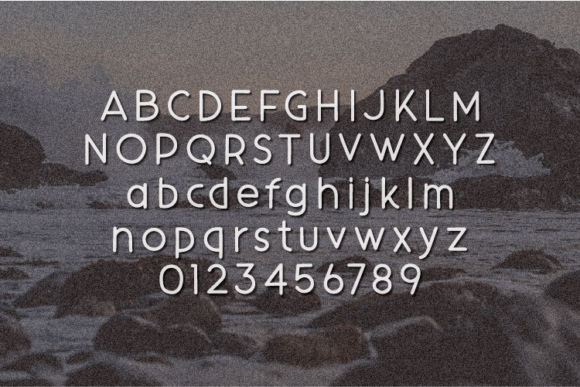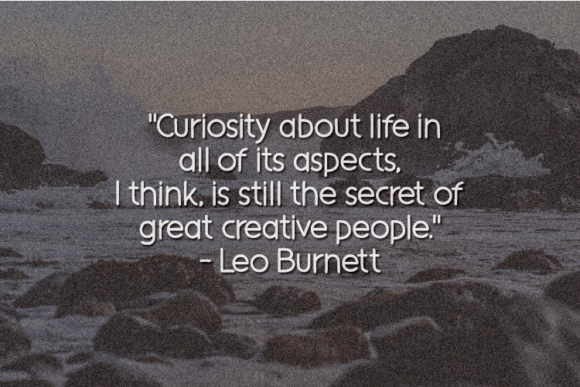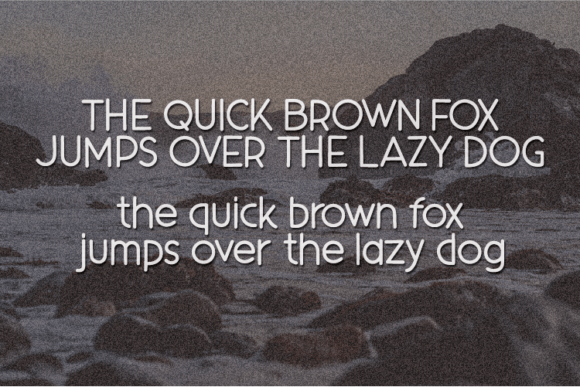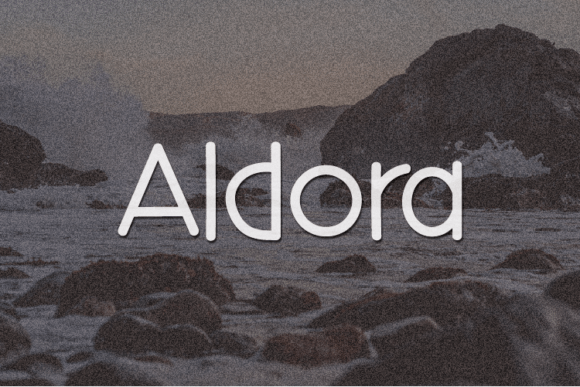
Aldora Font: The Unique Natural Sans Serif for Creative Designs
In the world of typography, fonts play a crucial role in conveying messages, expressing emotions, and creating visual identities. For designers and crafters, finding the perfect font can be a daunting task, especially when looking for something that stands out from the crowd. This is where Aldora Font comes in – a natural sans serif font that has been making waves in the design community with its unique characteristics and versatility.
The Story Behind Aldora Font
Aldora Font is a carefully crafted typeface that boasts a distinctive feature: it is made without changing a single node in each character’s indentation. This attention to detail and commitment to preserving the natural curves and shapes of the characters make Aldora a one-of-a-kind font. The result is a font that exudes a sense of organic simplicity, making it perfect for designs that require a touch of elegance and sophistication.
Key Features of Aldora Font
- Natural Sans Serif: Aldora Font features a clean and minimalist sans serif design that gives it a fresh and modern look.
- Unique Indentation: The font’s distinctive characteristic of not altering a single node in each character’s indentation sets it apart from other fonts.
- Versatile: Aldora Font is suitable for a wide range of design applications, from quotes and notes to tees and product design.
- Easy to Read: The font’s clear and simple design makes it easy to read, even at smaller sizes.
Uses of Aldora Font
Aldora Font’s versatility makes it an excellent choice for various design projects. Here are some ideas to get you started:
- Quotes and Inspirational Messages: Use Aldora Font to create visually appealing quotes and inspirational messages for social media, posters, or flyers.
- Notes and Journals: Add a touch of elegance to your notes and journals with Aldora Font, perfect for bullet journaling, planners, or daily logs.
- T-Shirts and Merchandise: Create eye-catching designs for t-shirts, hoodies, and other merchandise using Aldora Font.
- Product Design: Incorporate Aldora Font into your product design, such as packaging, labels, or branding materials, to give your products a unique and memorable look.
Tips for Using Aldora Font
To get the most out of Aldora Font, here are some tips to keep in mind:
- Experiment with Sizes: Aldora Font looks great at various sizes, so don’t be afraid to experiment with different font sizes to find the perfect fit for your design.
- Pair with Other Fonts: Combine Aldora Font with other fonts to create a unique and visually appealing typography.
- Play with Colors: Aldora Font’s simplicity makes it an excellent choice for designs with bold colors and striking graphics.
Aldora Font is a game-changer for designers and crafters looking for a unique and versatile font to elevate their designs. Its natural sans serif design, combined with its distinctive indentation, makes it a standout in the world of typography. Whether you’re creating quotes, notes, tees, or product designs, Aldora Font is an excellent choice. So why not give it a try and see how this amazing font can take your designs to the next level?